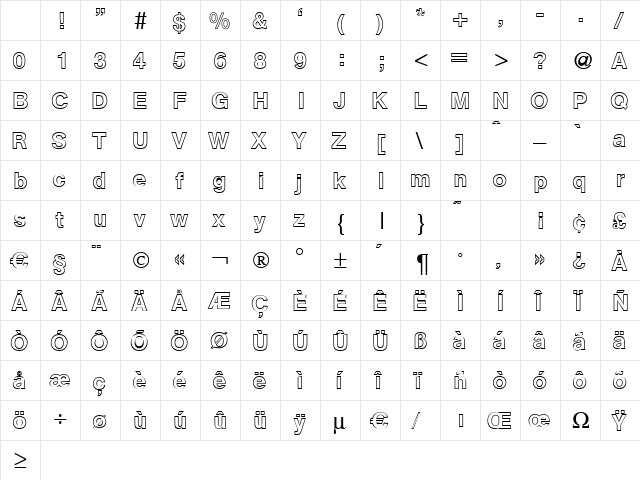
AtkinsOutlineMedium Regular
AtkinsOutlineMedium Regular Family
Design Context for AtkinsOutlineMedium
AtkinsOutlineMedium is built around its visual character rather than neutral utility - its distinctive forms are designed to make an impression at display sizes.
Font Pairing: Pair with a clean neutral sans-serif for body copy to let AtkinsOutlineMedium's character lead without overwhelming the composition.
Pro Tip: Use AtkinsOutlineMedium exclusively at display sizes - it was designed to be seen, not read at length. Let a neutral companion handle body copy.